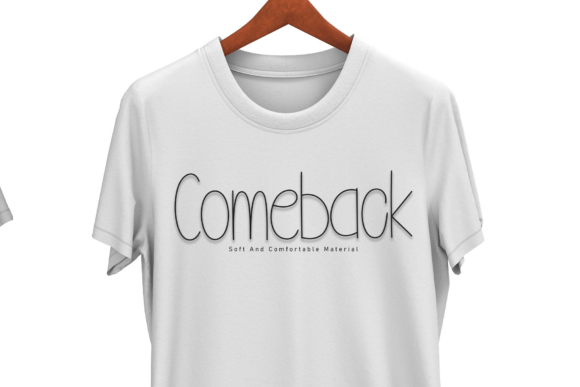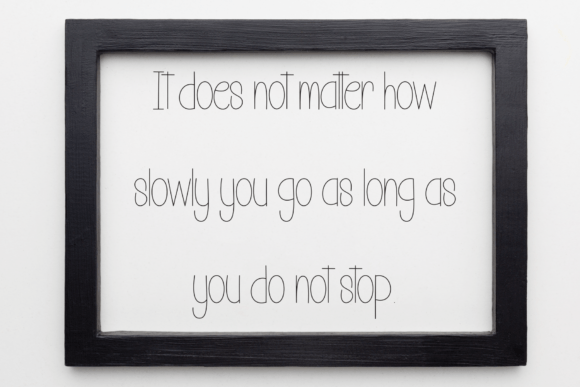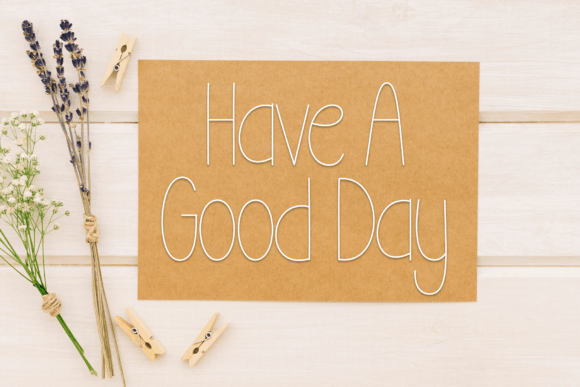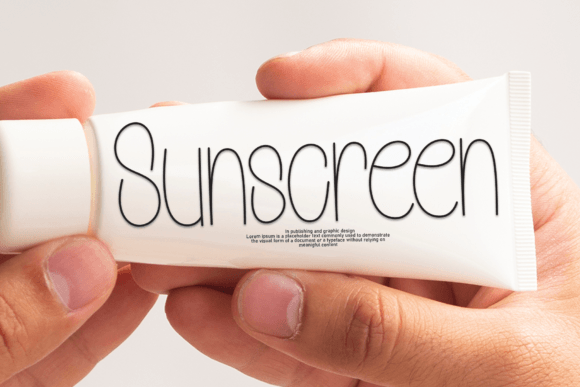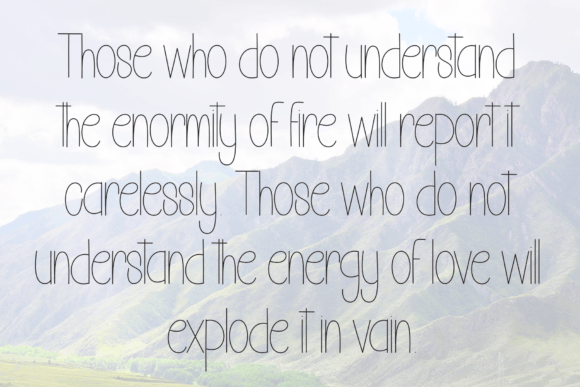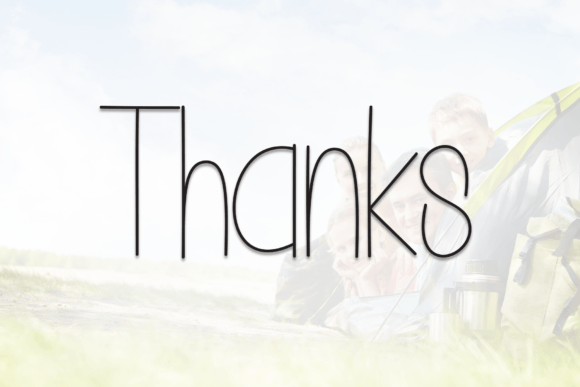
Introduction to Happy Campion Font
Presenting the charming and approachable handwritten display font, crafted to capture warmth and whimsy.
Perfectly adorable and playful, this font is the dream choice for your wedding invitation creation, greeting card designs, or any project you have in mind that could benefit from a spritz of fun Effortlessly bring your designs to life with this delightful font, designed to spread joy with every letter.
Key Features of Happy Campion Font
Why Choose Happy Campion Font?
Happy Campion Font offers exceptional quality and versatility, making it a valuable addition to your design toolkit. Whether you’re creating for personal projects or commercial use, Happy Campion Font delivers professional results.